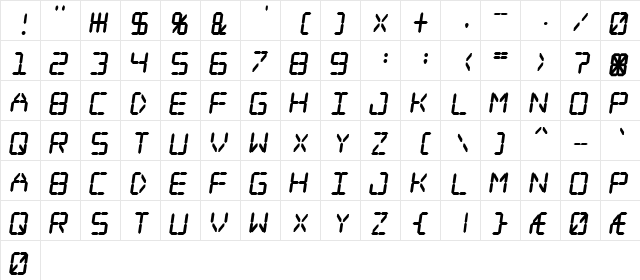
Digital dream Fat Skew Regular
Design Context for Digital dream Fat Skew Typeface
Digital dream Fat Skew has a distinctly futuristic character, with geometric precision and clean angles that feel at home in technology, gaming, and sci-fi contexts.
Pro Tip: Try Digital dream Fat Skew with generous letter-spacing in UI labels and navigation — the geometric forms benefit from room to breathe.